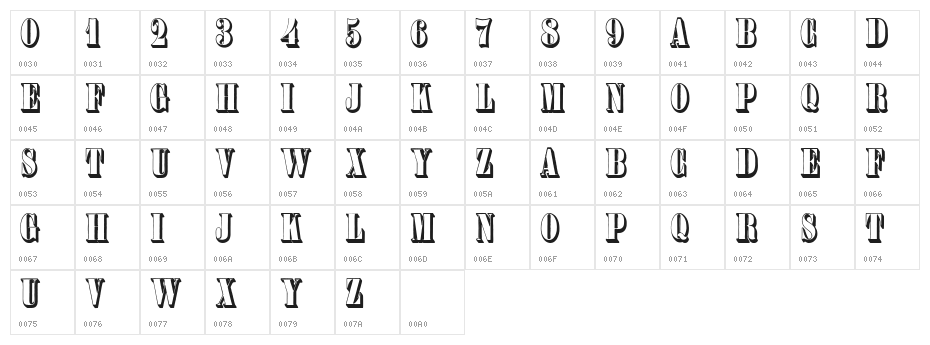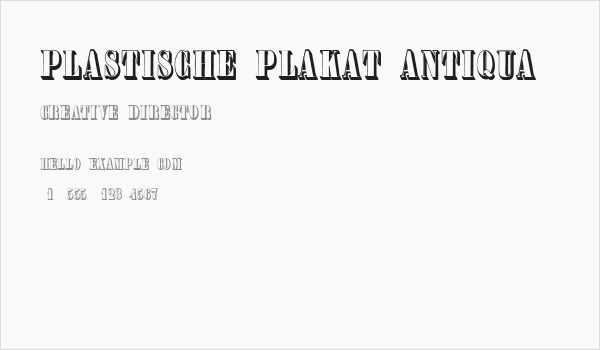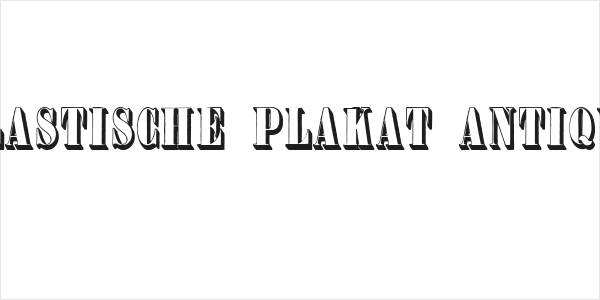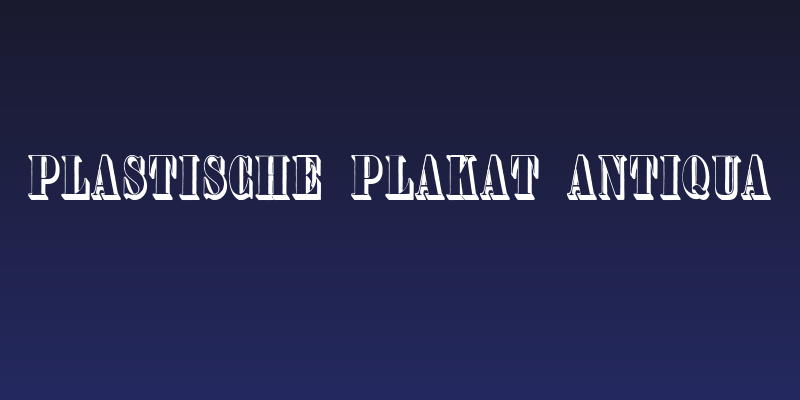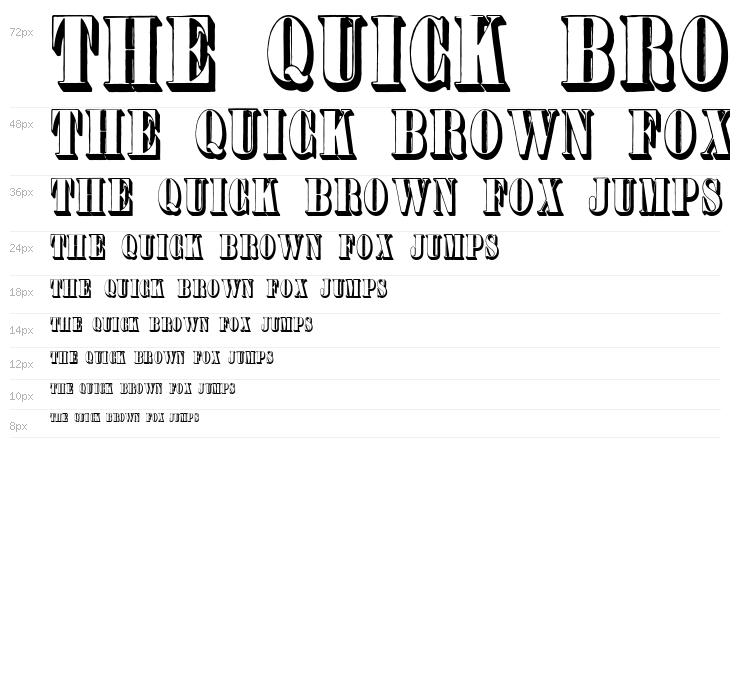
Plastische Plakat-Antiqua Font
Plastische Plakat-Antiqua Description
This font features a bold and striking design with a three-dimensional effect, achieved through the use of shadows and highlights. The characters are uppercase and have a strong presence, making them ideal for attention-grabbing headlines or posters. The font combines elements of classic serif styles with a modern twist, giving it a unique and memorable appearance. The strokes are thick and consistent, providing a sense of stability and strength. The spacing between characters is normal, ensuring readability while maintaining the bold aesthetic.
| Use Case | Headlines, Posters, Advertising |
| Proposed Projects | Ideal for posters, headlines, advertising, and any project requiring a bold and impactful visual statement. |